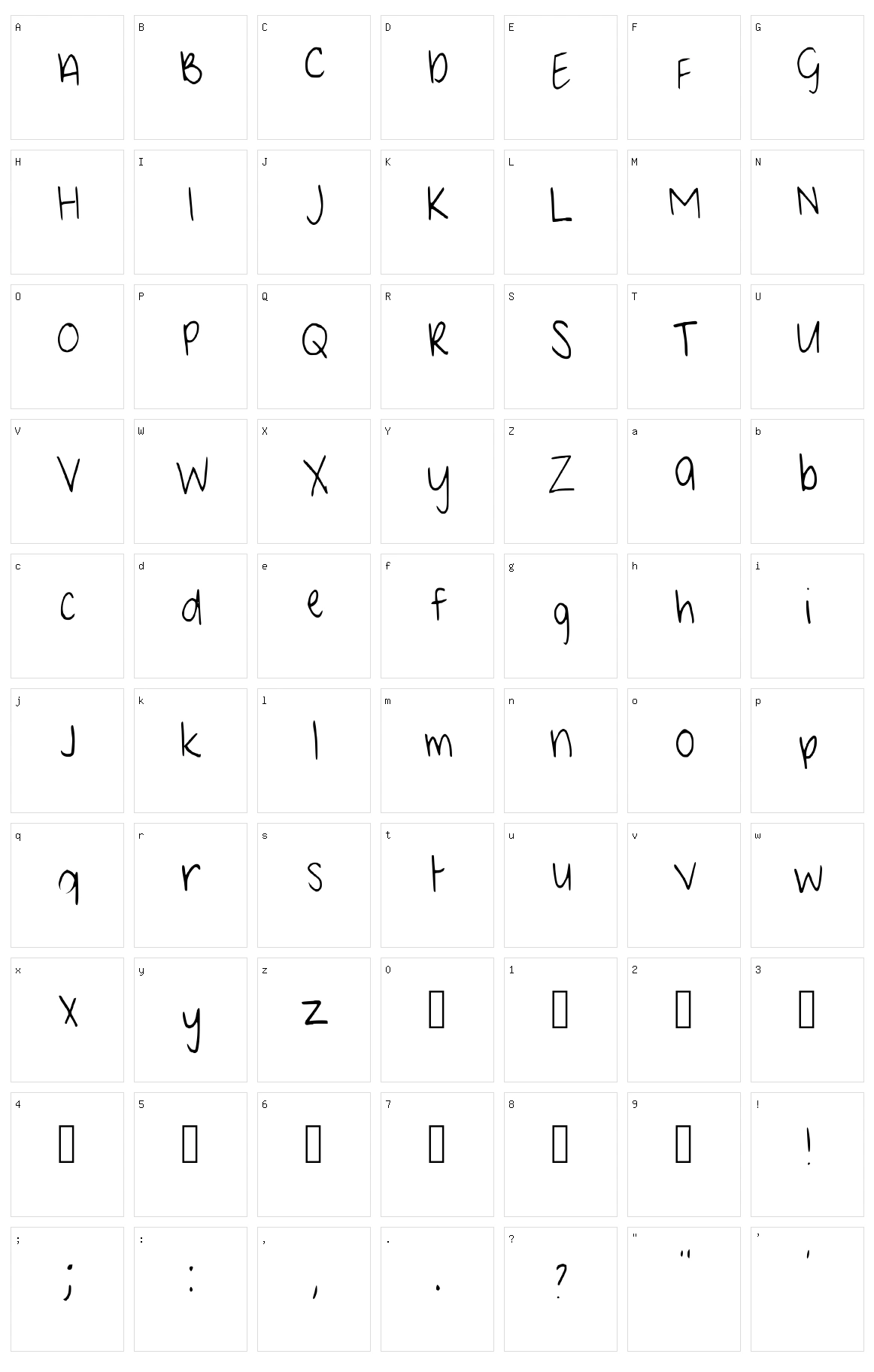
The free font Bean is carefully designed by Nico Bauer, showcasing a thoughtful balance of creativity and usability and falls under the Script font style. When you download the ZIP file, it contains only 9.82 KB of font files, making it lightweight and quick to download. Please review the license details below to understand permitted usage and distribution rights. If license information is not available, we recommend using this font for personal projects only or contacting the author directly for commercial usage permissions.